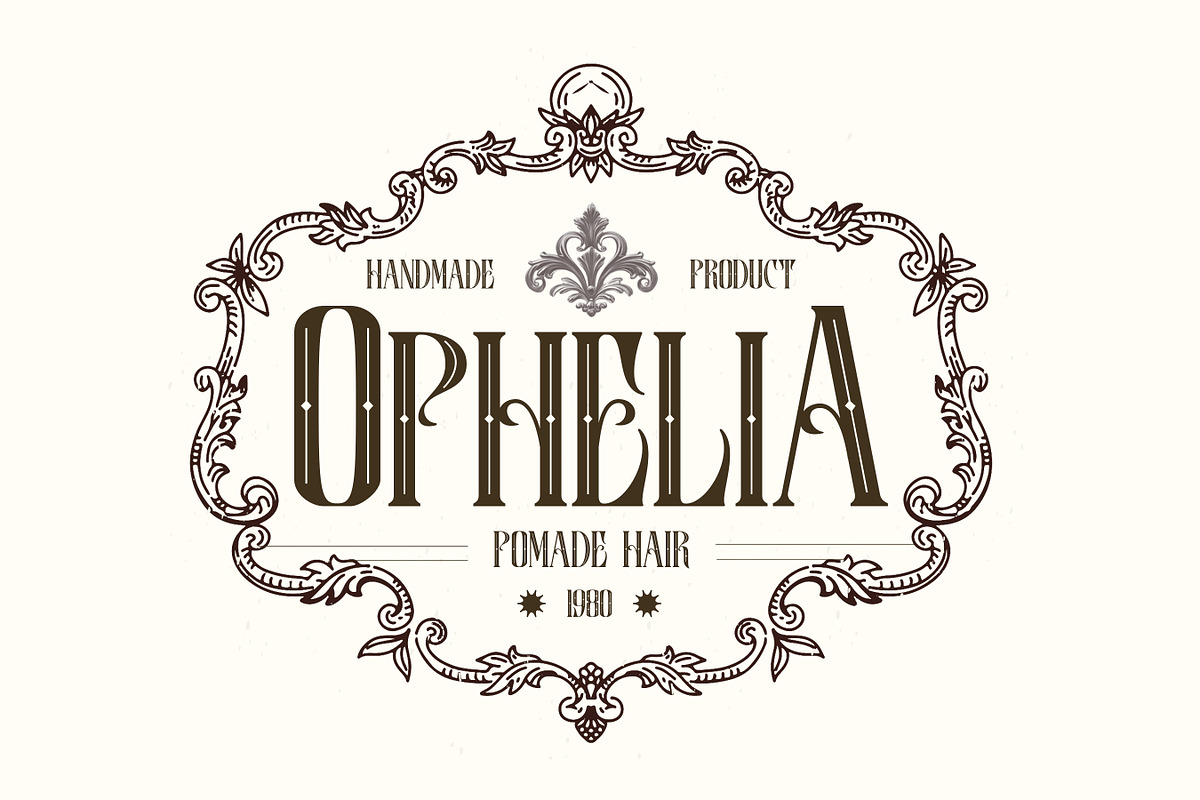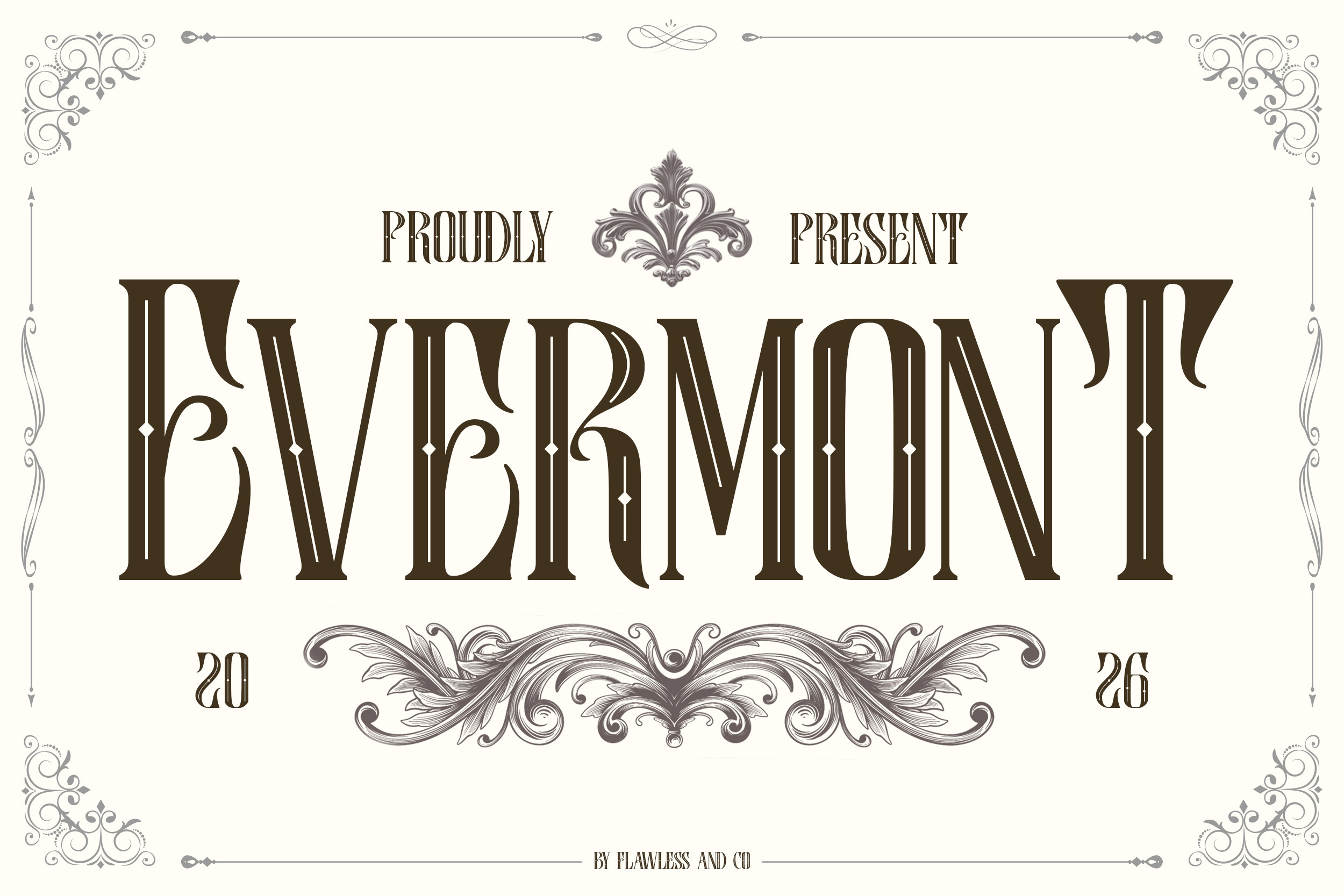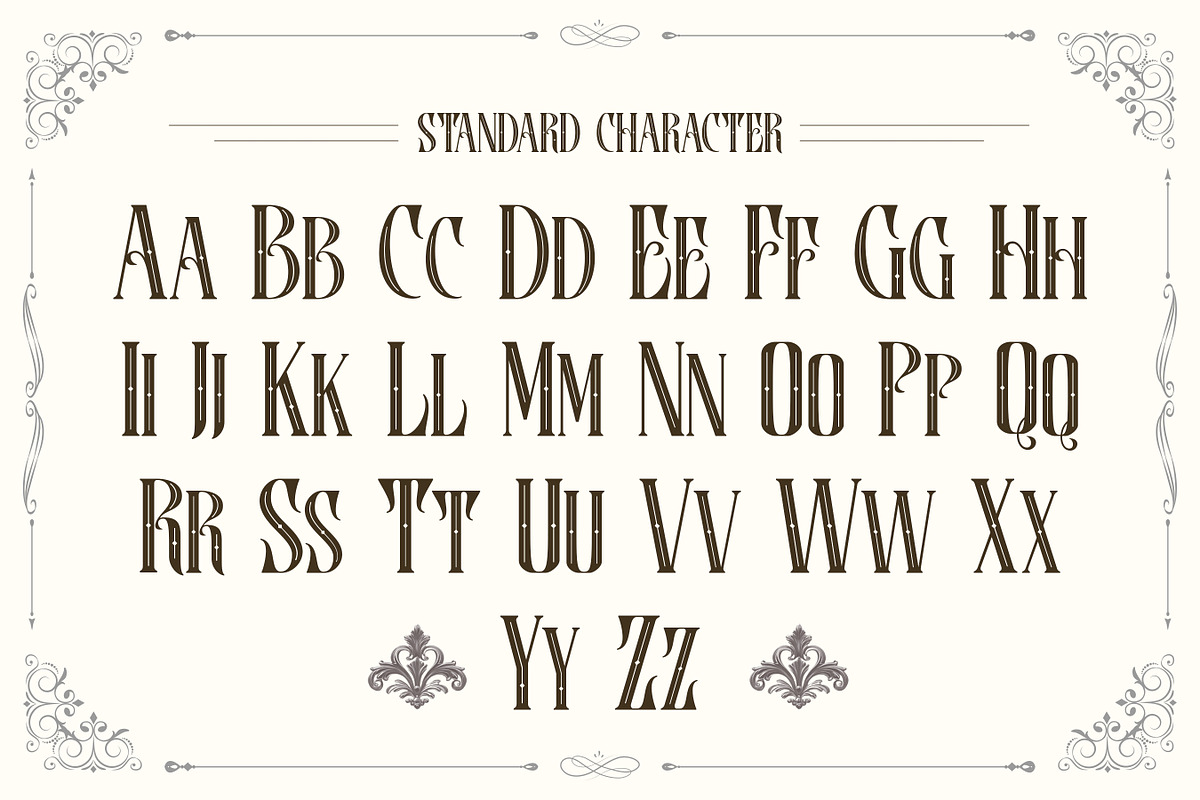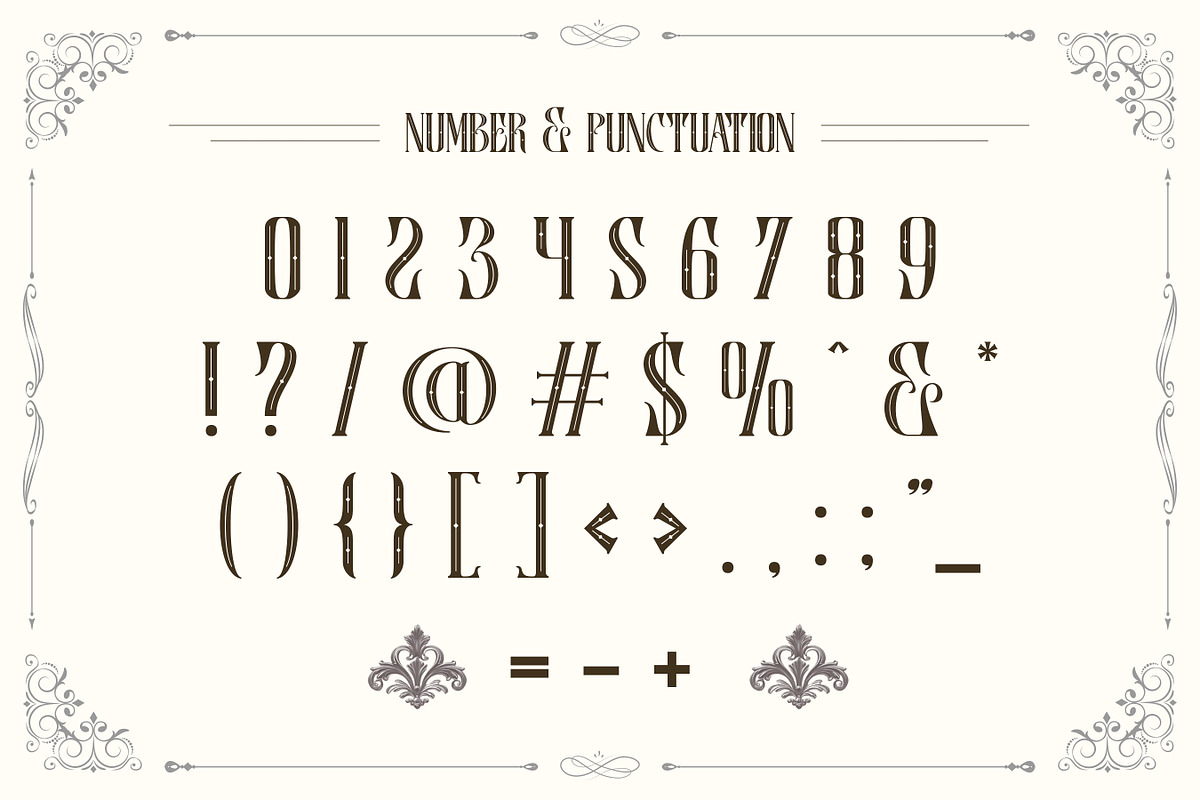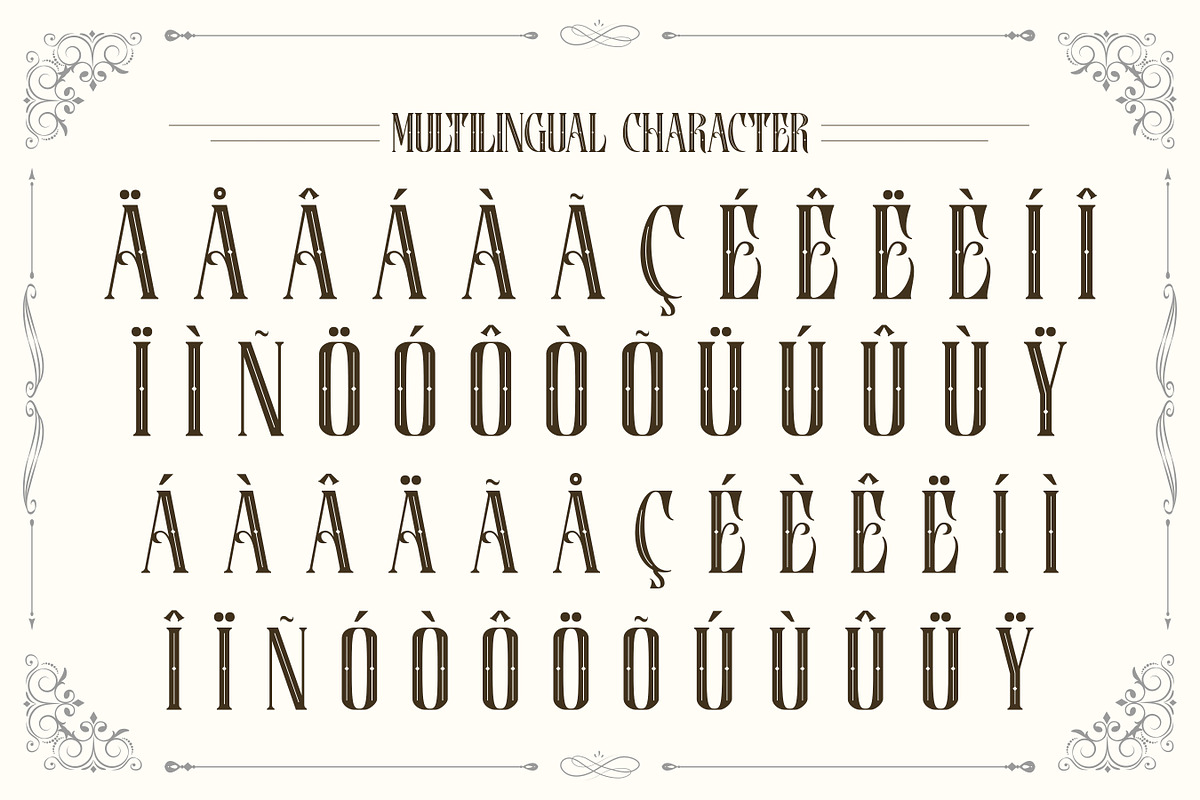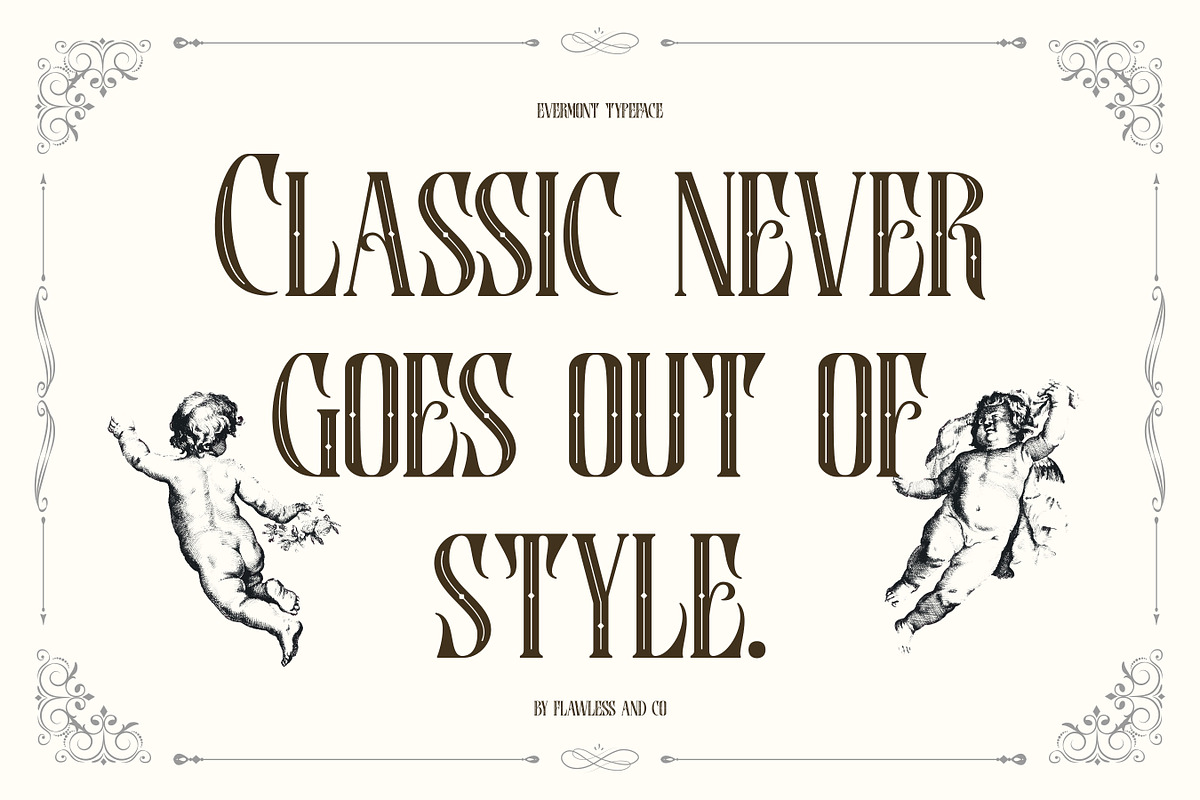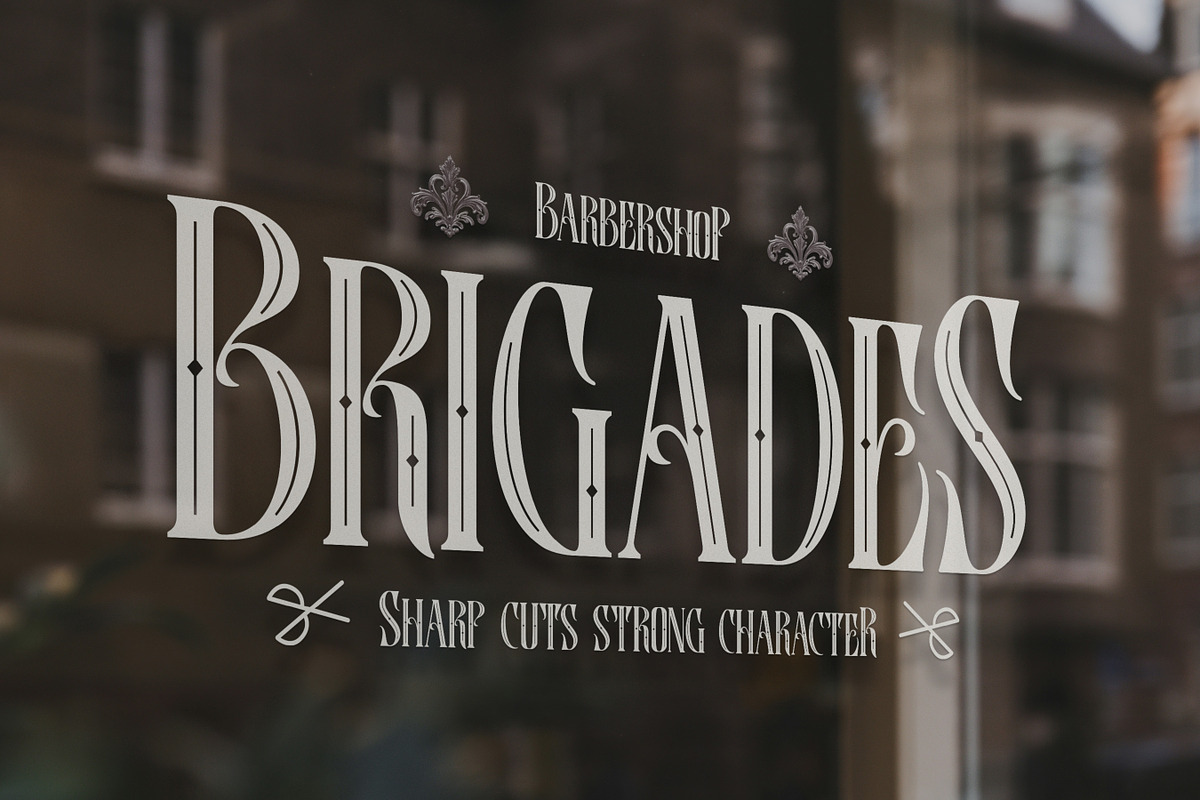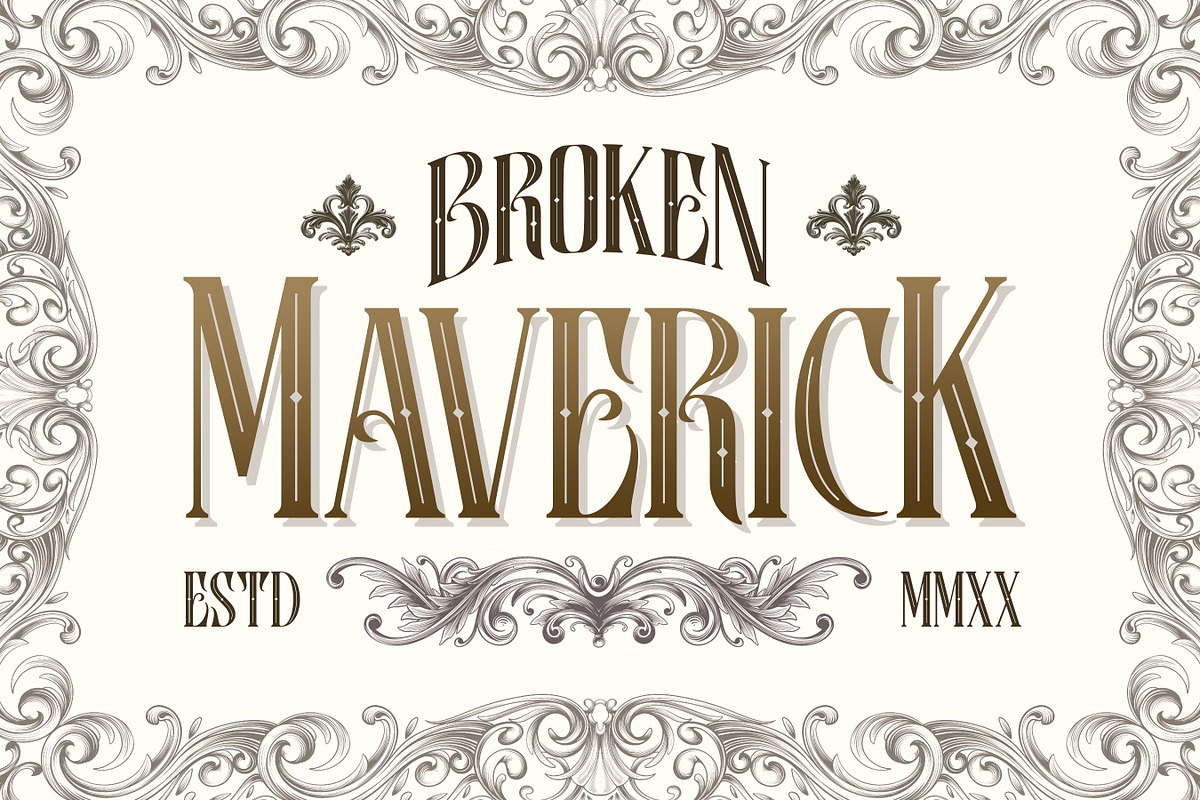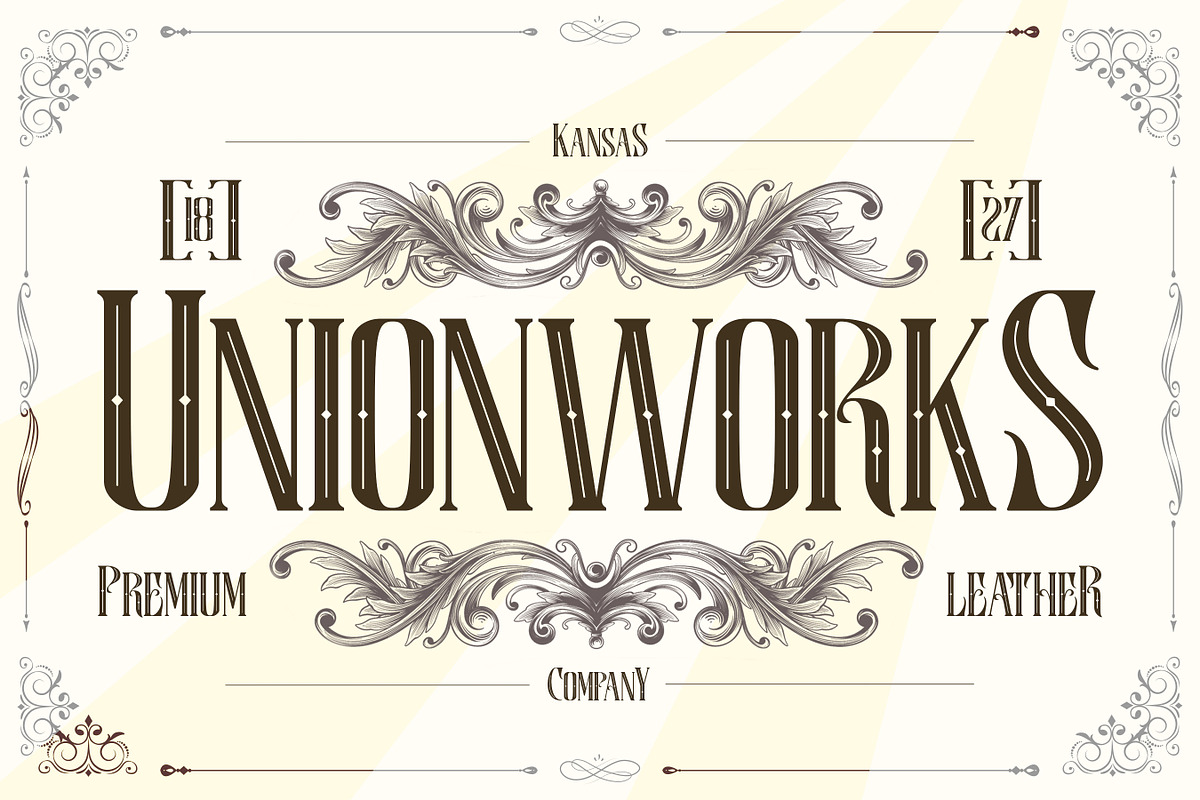
Evermont - Victorian Display Font
Evermont is a beautifully crafted Victorian display font that brings the elegance and sophistication of 19th-century typography into modern design. Featuring ornamental details, decorative serifs, and richly styled letterforms, Evermont creates a luxurious and timeless visual experience. Its classic Victorian influence gives every design a sense of prestige, refinement, and historical charm, making it perfect for projects that demand a distinctive vintage character.
Alternates & Ligatures
Who Should Use Evermont?
Evermont is perfect for designers, creative brands, publishers, and vintage-inspired businesses looking for a display font with rich decorative details and classic Victorian appeal. It’s especially suitable for projects that require luxurious typography, historical aesthetics, and elegant visual storytelling.
Suitable For:
Victorian and vintage branding
Luxury packaging design
Book covers and publishing projects
Whiskey, coffee, and premium product labels
Restaurant and cafe identities
Poster and signage design
Wedding and event stationery
Decorative display typography